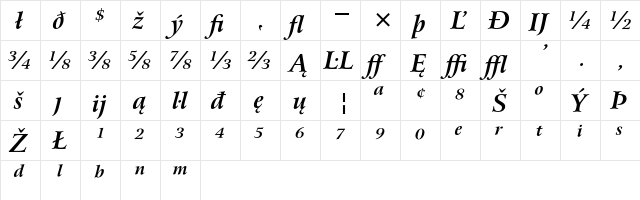
Bitstream Arrus Bold Italic Extension Font Preview
Design Context for Bitstream Arrus Typeface
Bitstream Arrus takes a measured approach to typography — its balanced proportions and neutral character make it a reliable workhorse for both digital and print work. The dynamic lean of this cut emphasises speed and emphasis in any layout. Its bold stroke weight gives it real presence on the page.
Pro Tip: Try Bitstream Arrus for annotation and caption copy alongside an upright companion — the contrast in angle creates a dynamic but ordered typographic system.